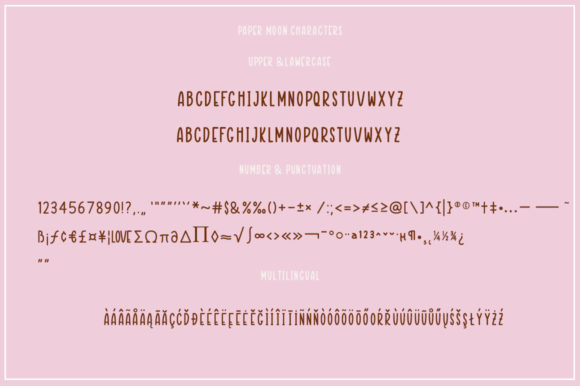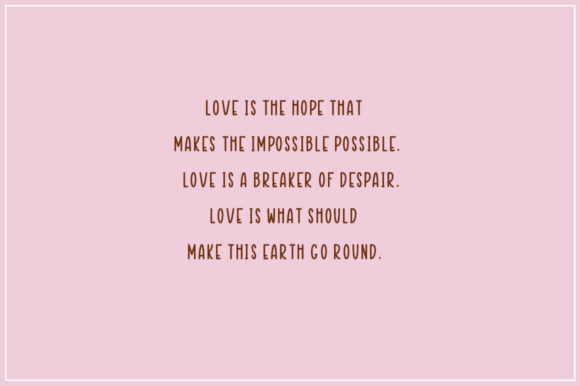
Paper Moon Font
db-ku.com - Script & Handwritten -- Paper Moon is a simple handwritten font that can be used for all chalkboard quotes or teaching material! Its authentic look and feel will add a personal and realistic feel to your designs.